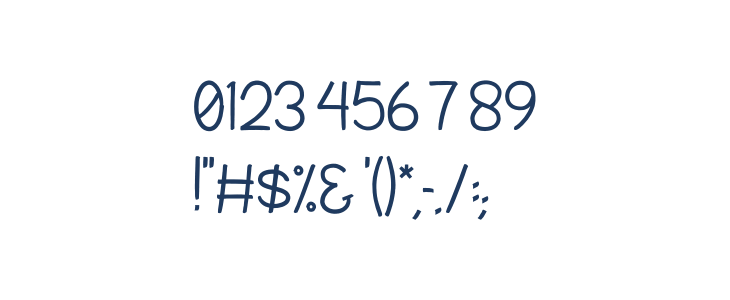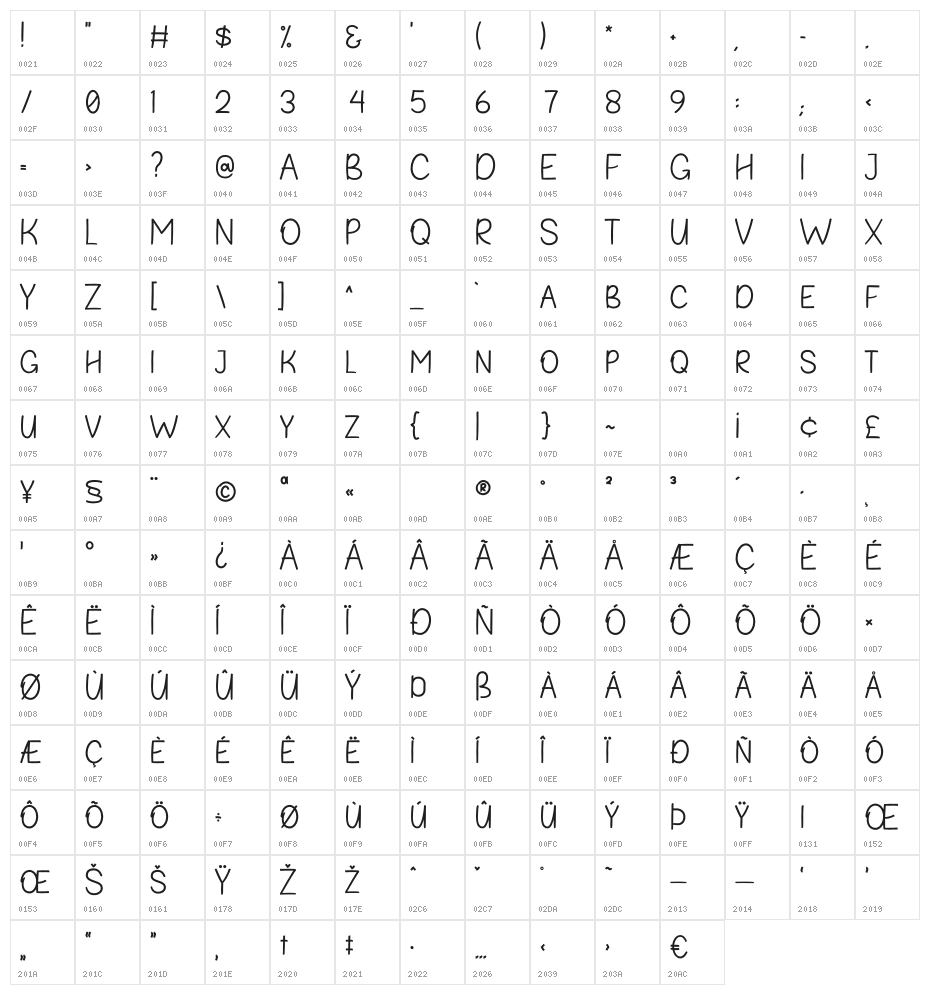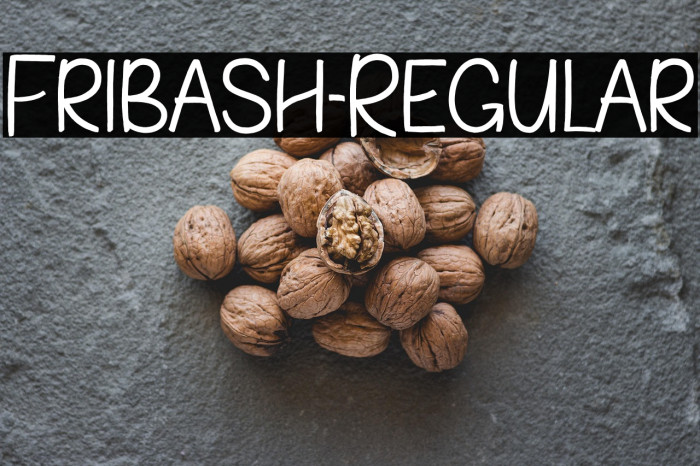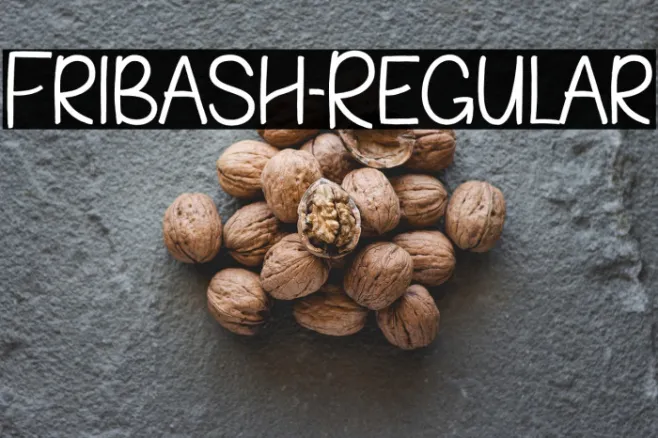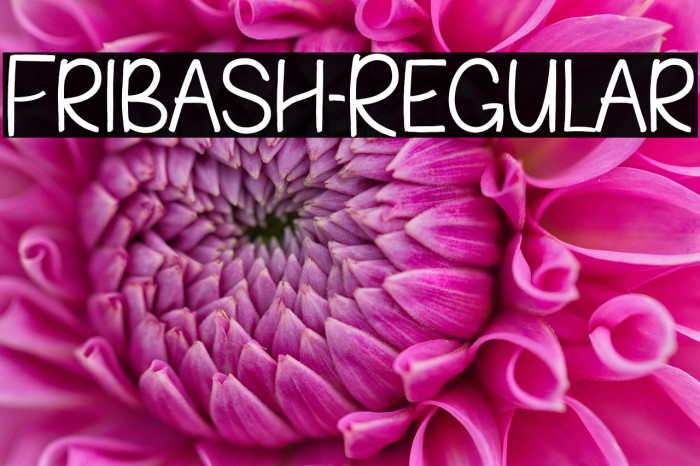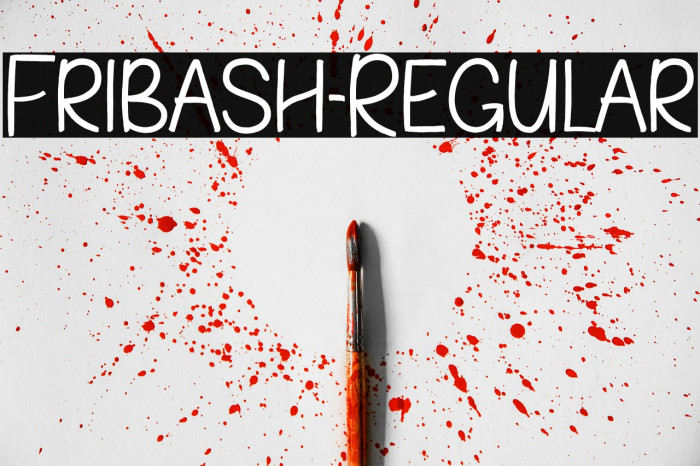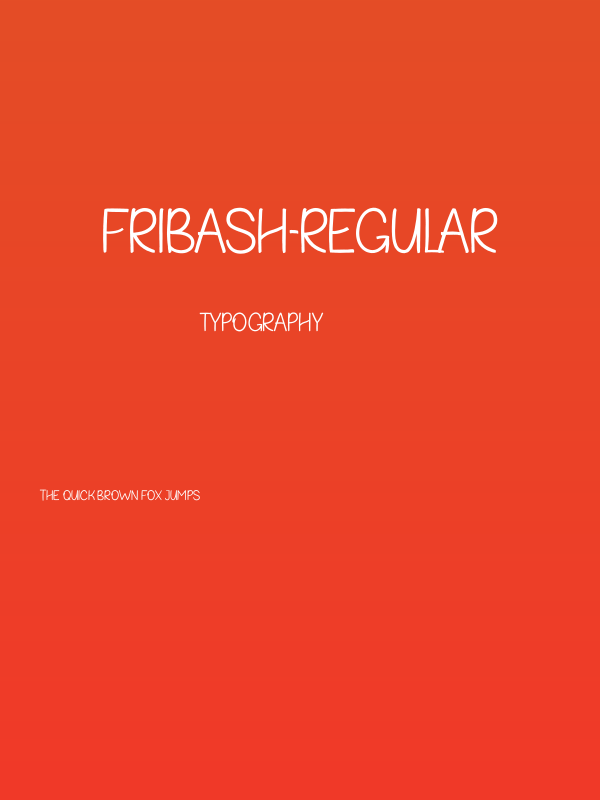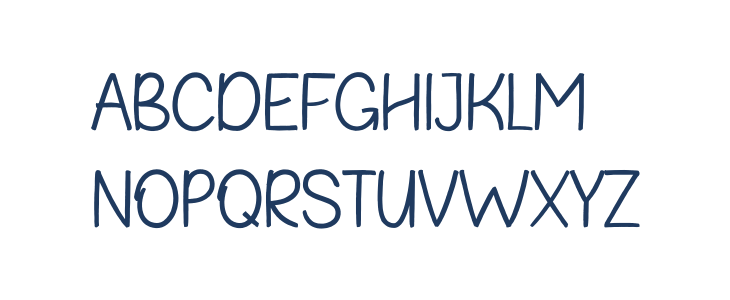
Fribash-Regular Font
Fribash-Regular Description
This font features a playful and informal style, characterized by its handwritten appearance. The letters are slightly slanted, giving a casual and relaxed feel. The strokes are consistent in thickness, providing a uniform look across all characters. The uppercase and lowercase letters maintain a cohesive design, with rounded edges and a smooth flow. The numerals and special characters are crafted to match the overall aesthetic, ensuring a harmonious appearance. This font is versatile and can be used to convey friendliness and approachability.
| Use Case | Headlines, Informal text, Branding |
| Proposed Projects | Ideal for greeting cards, children's books, casual branding, and social media graphics. |